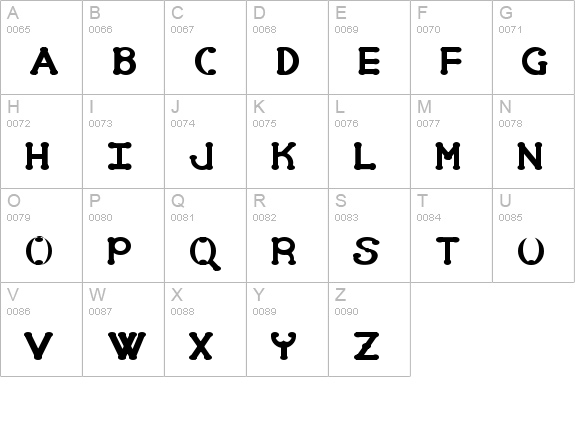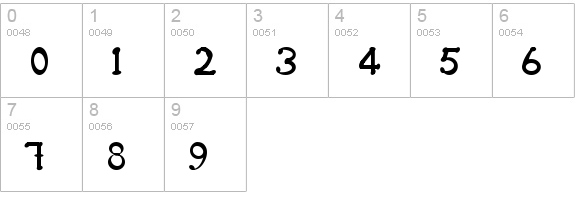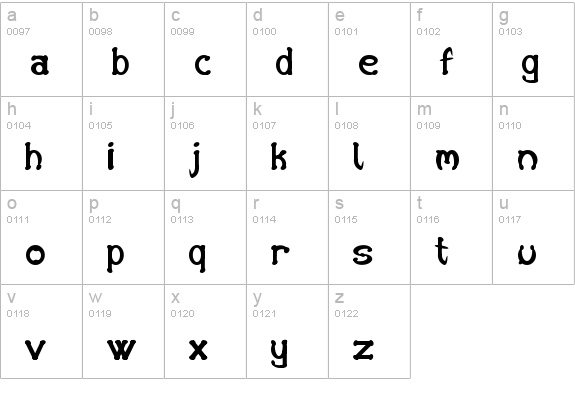
Hand font is a stunning and versatile typeface that adds a touch of creativity and authenticity to any design project. Whether you're working on a logo, poster, or website, this font will effortlessly capture attention and evoke a sense of artistic flair. Hand font features a beautifully hand-drawn style with fluid lines and organic curves, giving it a unique and charming appeal. It exudes a sense of warmth and personality that cannot be replicated by other fonts. With its intricate details and carefully crafted characters, Hand font adds a human touch to your designs, creating a connection with your audience. One of the best things about Hand font is that it is free! Yes, you read that right. This incredible font is freely available to download at FontsMarket.com. It's a fantastic opportunity for designers, artists, and creatives to have access to a high-quality font without any cost. Whether you're a professional designer or just starting your creative journey, Hand font is a must-have in your toolkit. Its versatility makes it suitable for various design styles, from elegant and sophisticated to playful and whimsical. It can be used in a wide range of projects, including branding, packaging, invitations, and more. With Hand font, you have the freedom to unleash your creativity and explore endless possibilities. Its timeless appeal and ability to convey emotions make it a go-to choice for designers looking to make a lasting impression. So, why wait? Head over to FontsMarket.com and download Hand font for free today. Elevate your designs and let your creativity flow with this remarkable typeface.